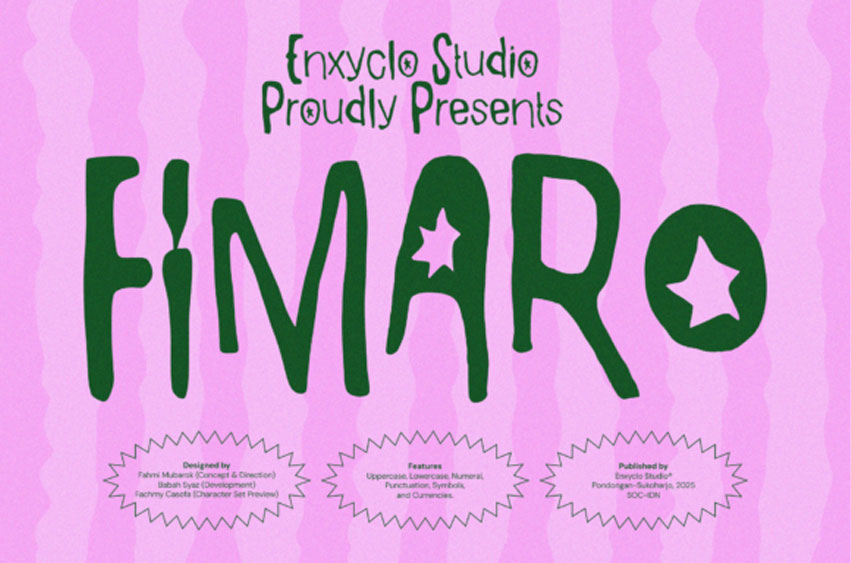
Fimaro Font is an enchantingly unique hand-drawn font that celebrates the allure of imperfection, the messy allure of the unrefined and the captivating beauty of raw creativity. With its capricious handwritten quality, FIMARO adds a distinctively contemporary twist yet retains an artisanal, expressive flavor. Each brush stroke emanates a raw, unadorned vitality, allowing this bold font to radiate a commanding individuality.
Crafted to shatter the commonplace rigidity of typical fonts, FIMARO infuses any layout with an invigorating creative spirit. Showcasing whimsical shapes and staunch handwritten style, this font is the ideal match for inventive branding, unique logos, arresting posters, and any innovative agency project requiring an injection of personality and visual narrative.
Perfect for arresting headlines, captivating titles, or memorable branding concepts, FIMARO ensures your message resonates with vivacity, impromptu charm and visual magnetism.
Ideal for creative logo and branding concepts, whimsical product packaging, striking posters, contemporary editorials and magazine layouts, social media content with an edge, dynamic agency visuals, playful headline and title designs, and unique brand identities in the lifestyle, art or handmade sectors.